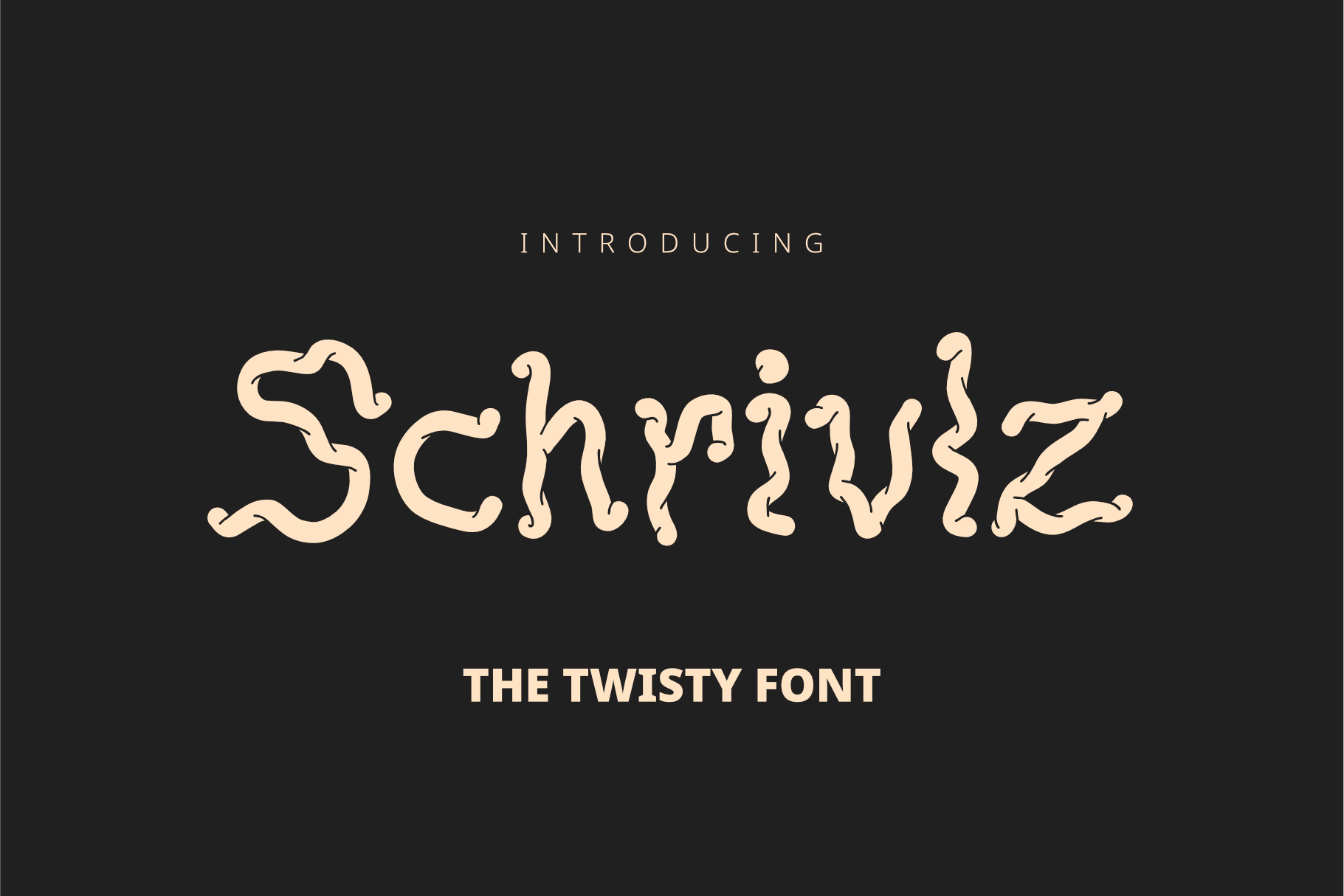
Schrivlz - The Twisty Font
Schrivlz is your new favorite terrible idea. It's wiggly. It's wormy. It's deeply unserious. Perfect for when your project needs a little... movement. Ideal for memes, joke posters, weird zines, and anything that doesn’t take itself too seriously.